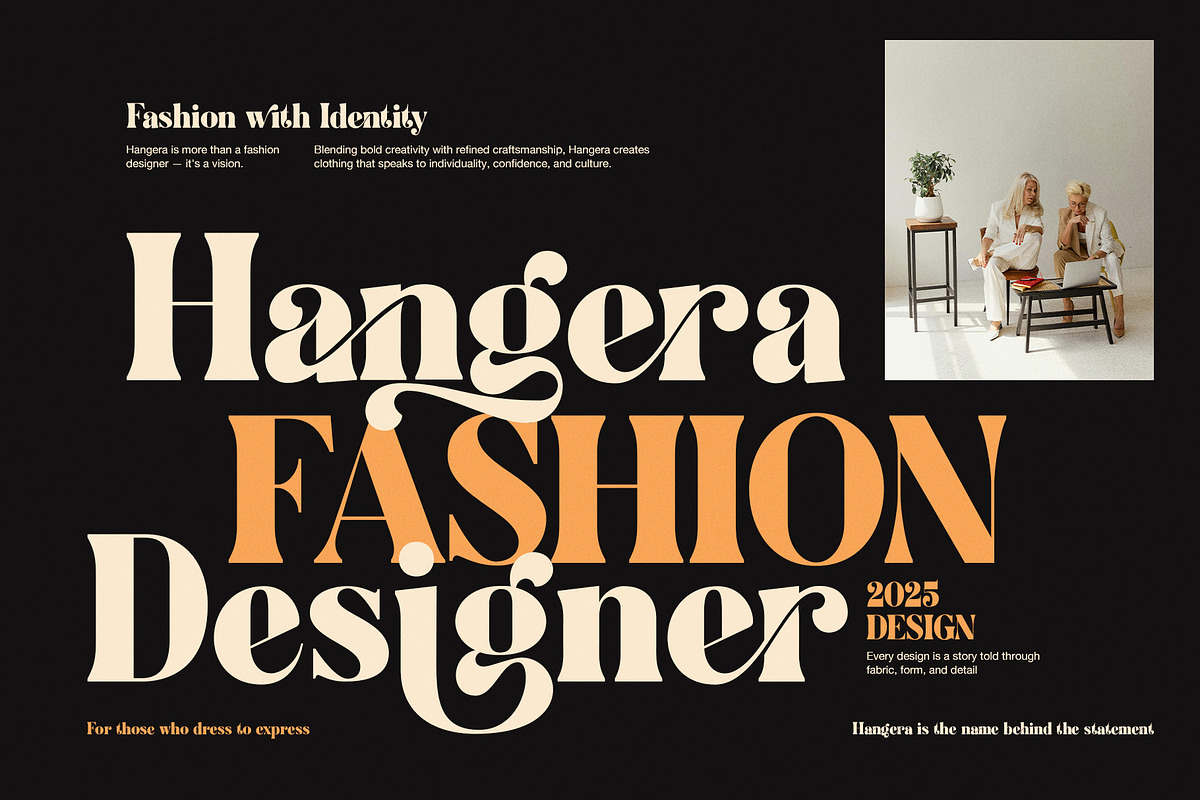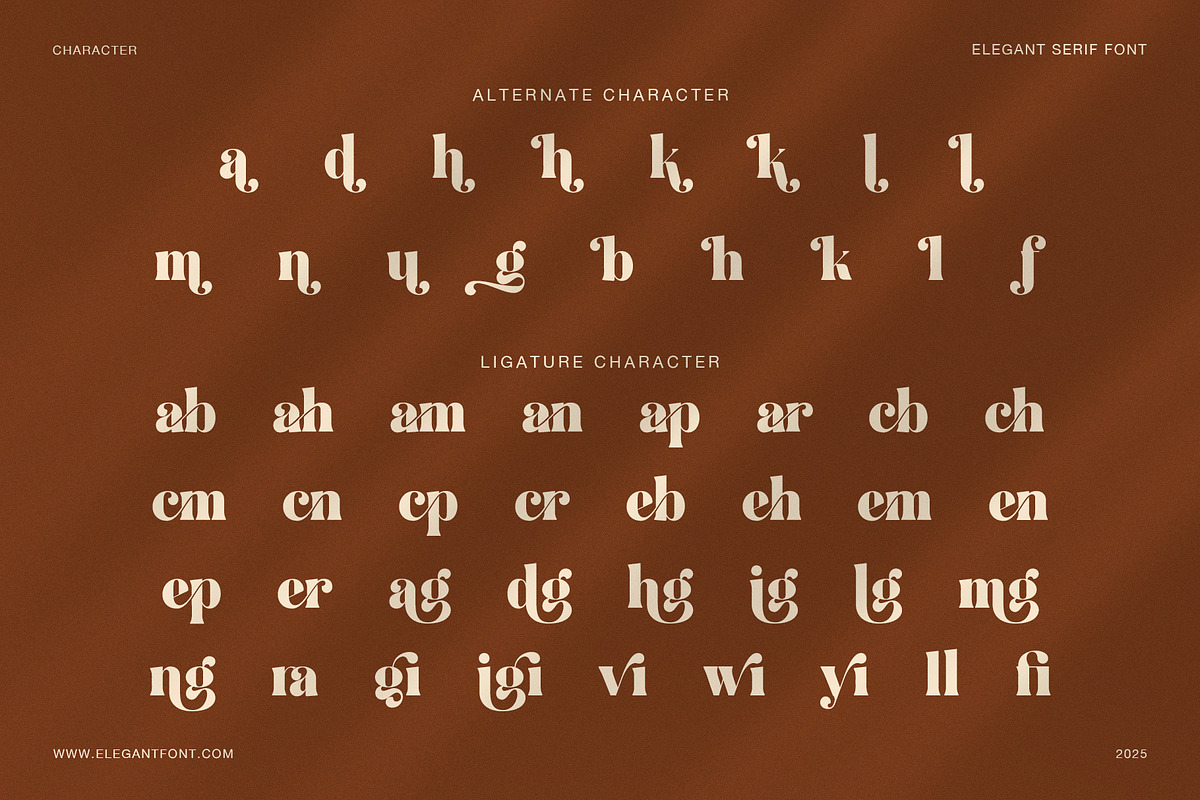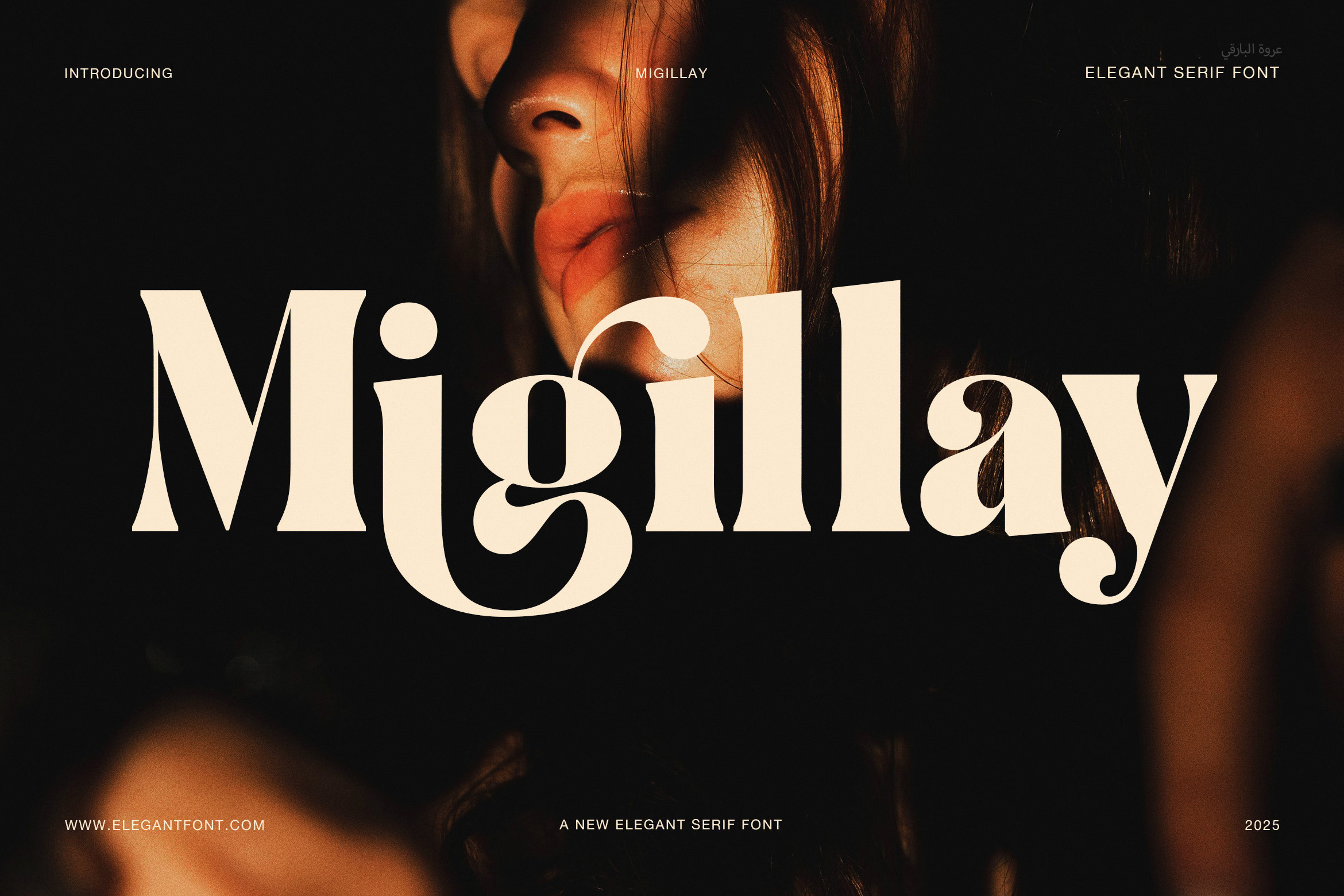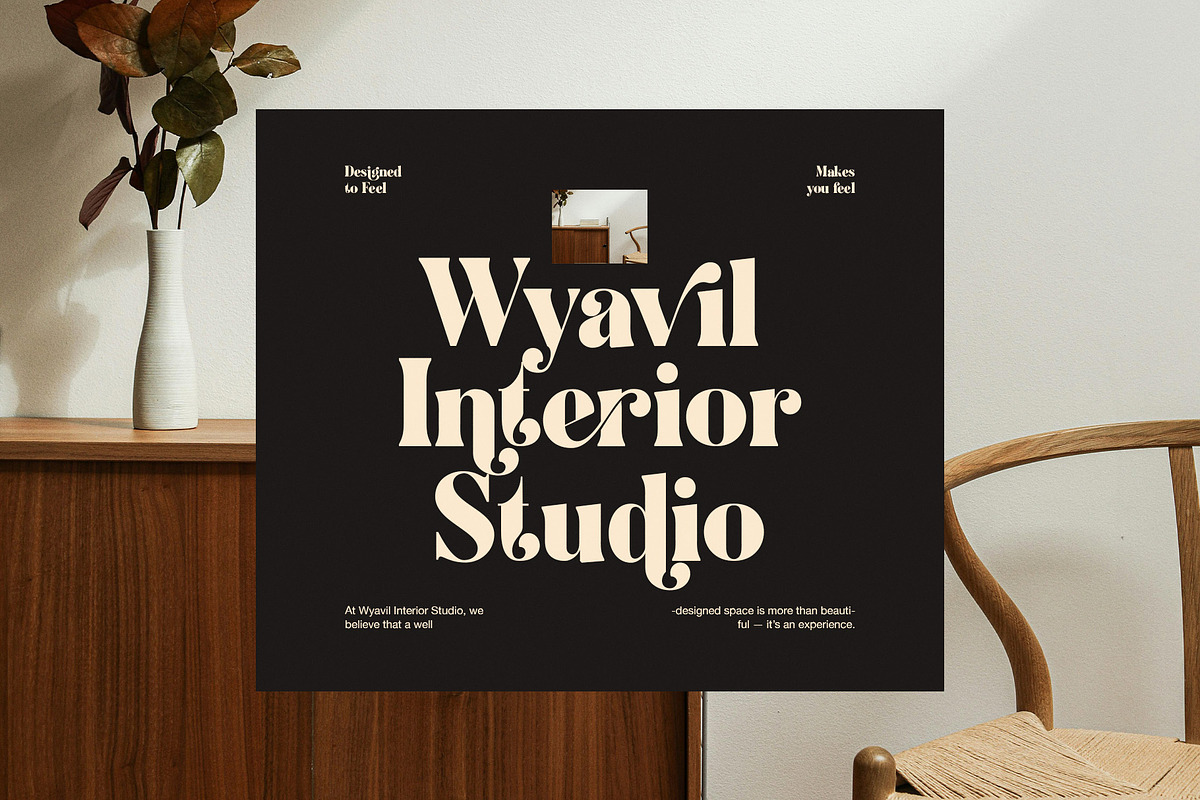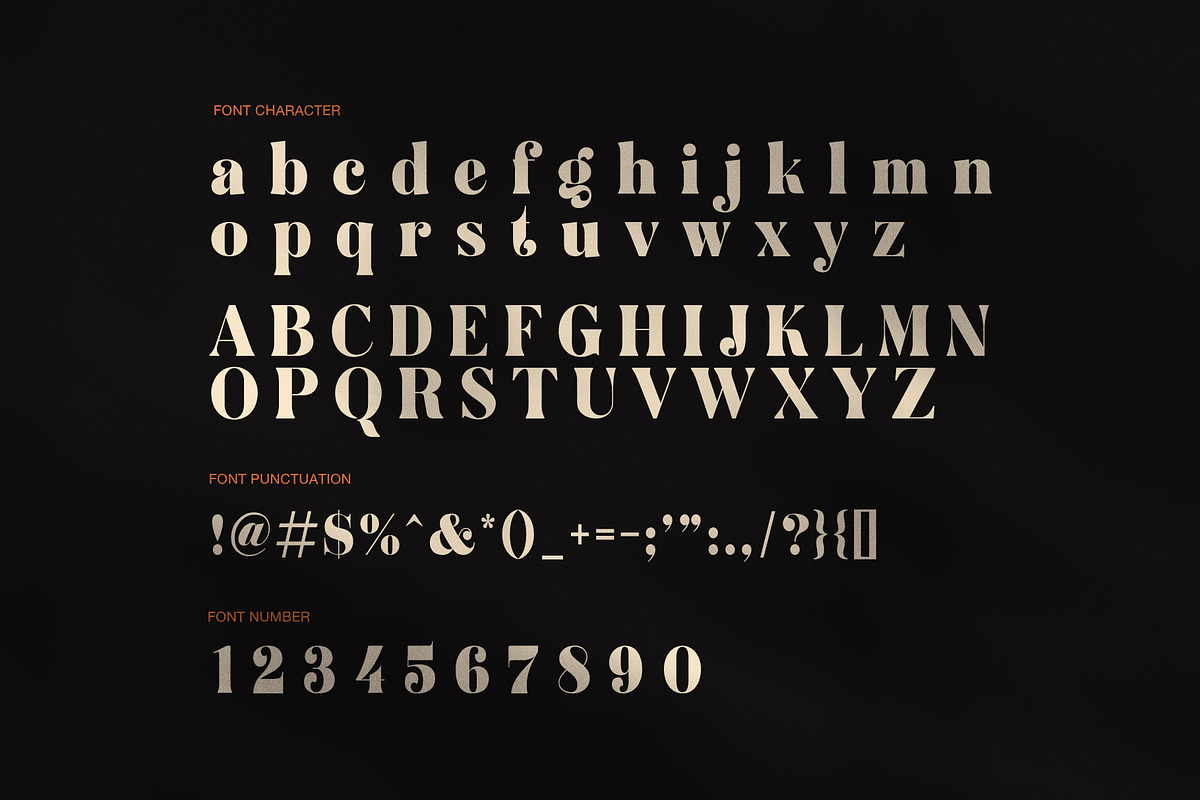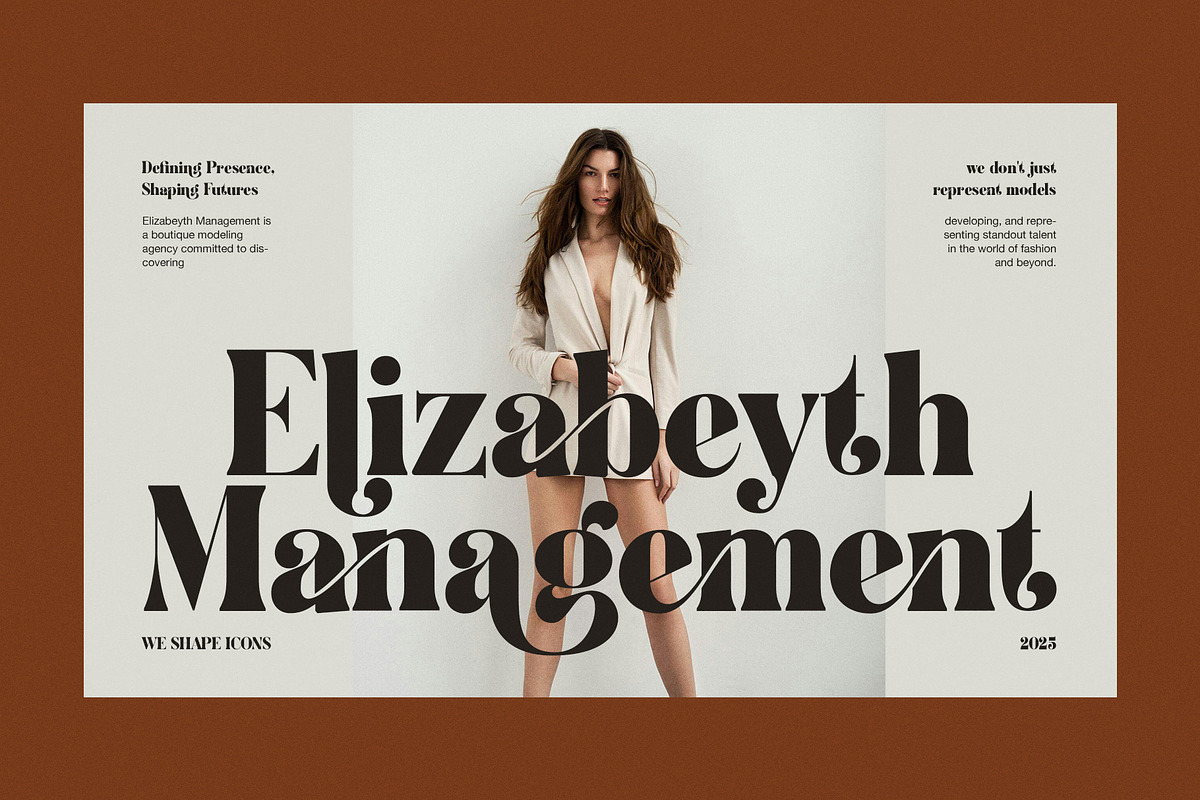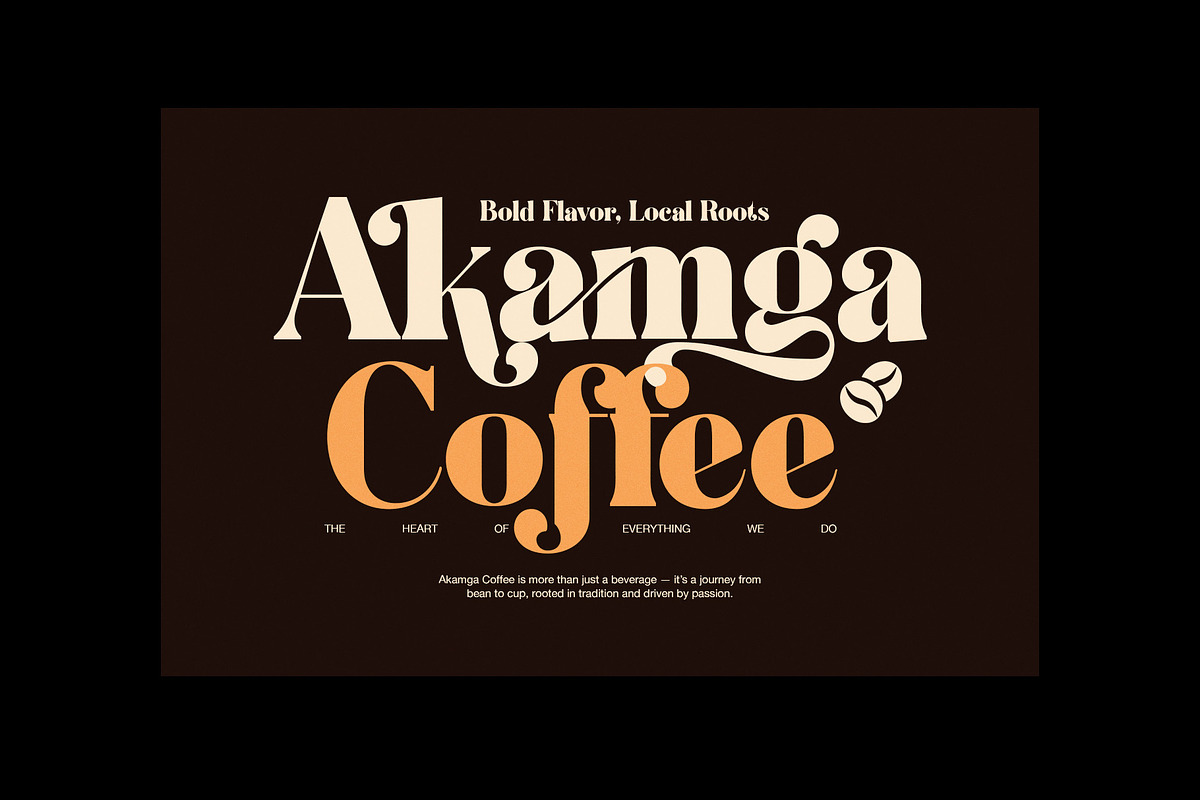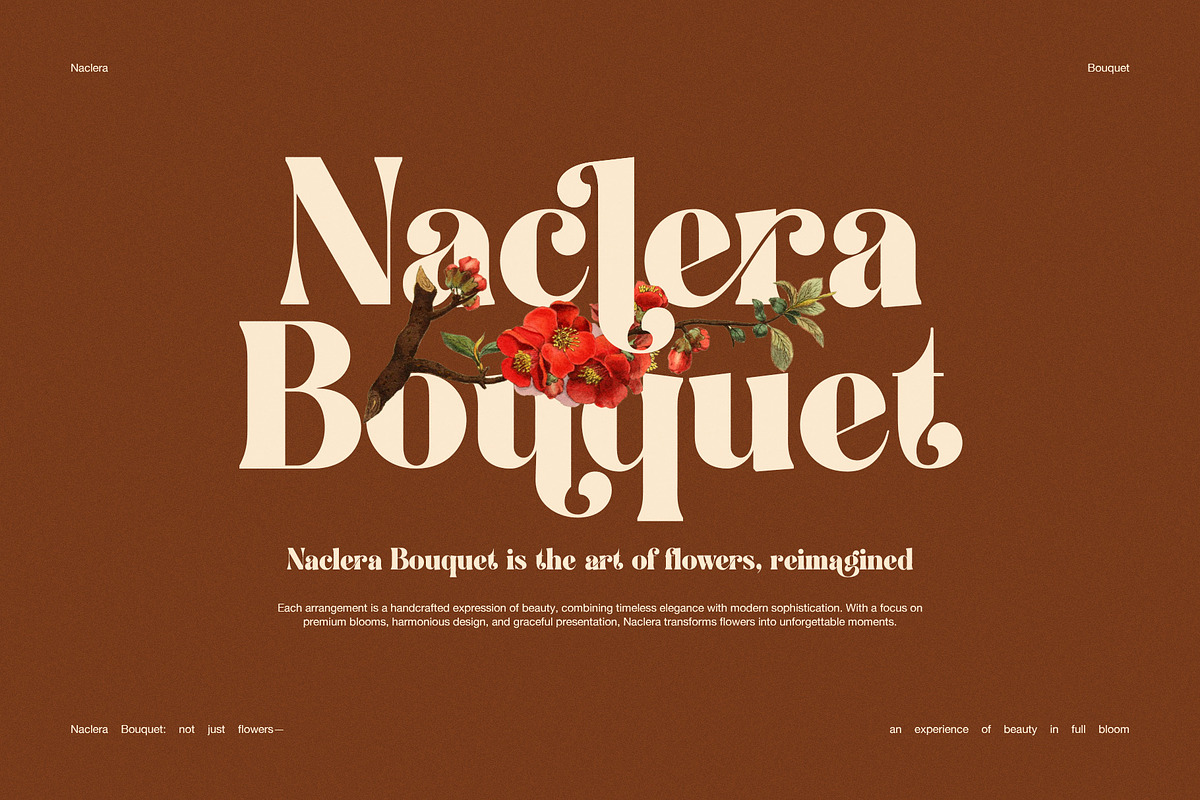
Migillay Elegant Serif Display Font
Migillay is an elegant serif display font designed to express confidence, emotion, and refined visual strength. Inspired by bold storytelling and timeless aesthetics, this font blends classic serif foundations with expressive curves and dramatic contrast. As a result, Migillay delivers a striking presence while maintaining elegance and balance.
Each letter in Migillay is carefully shaped to feel sculptural and intentional. The smooth transitions and confident strokes create a rhythm that feels natural and sophisticated. Because of this structure, the font performs exceptionally well in large headlines, branding statements, and impactful titles. Moreover, its distinctive forms add personality without sacrificing clarity.
Migillay includes alternate characters and decorative ligatures that allow designers to customize their typography. These features enhance visual flow and elevate wordmarks with subtle flair. Therefore, every design can feel unique, polished, and expressive. In addition, the font maintains consistency across digital screens and print materials, ensuring reliable performance in professional projects.
This serif display font is ideal for luxury branding, fashion editorials, lifestyle campaigns, and creative studios. Whether used for a logo, poster, or website hero section, Migillay communicates confidence and style. Furthermore, it pairs beautifully with cinematic photography, warm tones, and editorial layouts.
Migillay works equally well in minimal compositions and bold visual systems. Because of its versatility, designers can use it for coffee brands, floral boutiques, fashion labels, interior studios, and premium packaging. Its elegant structure helps guide attention while reinforcing brand identity.
Elegant serif display style with bold character
Expressive alternates for custom typography
Decorative ligatures for smooth word flow
Strong contrast with refined curves
Clean construction for professional use
Luxury and lifestyle branding
Fashion and editorial design
Logos and visual identities
Posters and promotional graphics
Website headers and hero sections
In summary, Migillay is more than a display font. It is a statement typeface built for designers who value elegance, strength, and visual storytelling in every project.